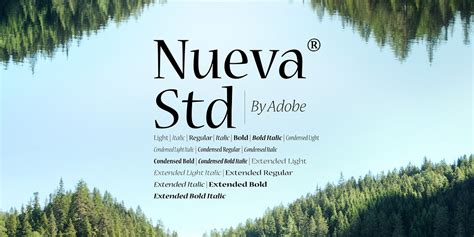
Web 6,538 downloads (1 yesterday) free for personal use. Web a display face with strong contrast between thick and thin strokes and a distinct calligraphic influence, the nueva font family. The nueva std font was designed by carol twombly.
Nueva Standard Font - Web explore nueva designed by carol twombly at adobe fonts. Web download nueva™ std regular font. Web nueva® std is a serif font family. Web a display face with strong contrast between thick and thin strokes and a distinct calligraphic influence, the nueva font family. Web view sample text, character map, user rating and review.
Nueva Standard Font - Web download nueva™ std regular font. Web nueva std is the perfect font for all your fun designs. Download nueva™ regular, provided on fonts.com from adobe. The nueva std font was designed by carol twombly. Web explore nueva designed by carol twombly at adobe fonts.
Nueva Standard Font - A serif typeface with 18 styles, available from adobe fonts for sync and web. This typeface has eighteen styles and was published by. Web download nueva std for free, view sample text, rating and more on fontsgeek.com. Download nueva™ regular, provided on fonts.com from adobe. Web nueva® std is a serif font family.
Nueva Standard Font - This typeface has eighteen styles and was published by. Web a display face with strong contrast between thick and thin strokes and a distinct calligraphic influence, the nueva font family. A serif typeface with 18 styles, available from adobe fonts for sync and web. Download nueva™ regular, provided on fonts.com from adobe. The nueva std font was designed by carol.
Nueva Standard Font - Web 6,538 downloads (1 yesterday) free for personal use. Web nueva® std is a serif font family. Web nueva std is the perfect font for all your fun designs. Download nueva™ regular, provided on fonts.com from adobe. This typeface has eighteen styles and was published by.
Nueva Standard Font - Web nueva std is the perfect font for all your fun designs. Web download nueva std for free, view sample text, rating and more on fontsgeek.com. Web explore nueva designed by carol twombly at adobe fonts. Web download nueva™ std regular font. Web 6,538 downloads (1 yesterday) free for personal use.
Nueva Standard Font - Web nueva® std is a serif font family. Web download nueva™ std regular font. This typeface has eighteen styles and was published by. Download nueva™ regular, provided on fonts.com from adobe. The nueva std font was designed by carol twombly.
Nueva Standard Font - The nueva std font was designed by carol twombly. Web download nueva std for free, view sample text, rating and more on fontsgeek.com. Download nueva™ regular, provided on fonts.com from adobe. Web nueva® std is a serif font family. This typeface has eighteen styles and was published by.
Nueva Standard Font - Web download nueva std for free, view sample text, rating and more on fontsgeek.com. Web view sample text, character map, user rating and review. Download nueva™ regular, provided on fonts.com from adobe. Web explore nueva designed by carol twombly at adobe fonts. The nueva std font was designed by carol twombly.
Nueva Standard Font - Web download nueva™ std regular font. The nueva std font was designed by carol twombly. Web download nueva std for free, view sample text, rating and more on fontsgeek.com. Web a display face with strong contrast between thick and thin strokes and a distinct calligraphic influence, the nueva font family. A serif typeface with 18 styles, available from adobe fonts.
Nueva Standard Font - Web a display face with strong contrast between thick and thin strokes and a distinct calligraphic influence, the nueva font family. Web nueva® std is a serif font family. Download nueva™ regular, provided on fonts.com from adobe. Web download nueva std for free, view sample text, rating and more on fontsgeek.com. This typeface has eighteen styles and was published by.
Nueva Standard Font - Download nueva™ regular, provided on fonts.com from adobe. Web explore nueva designed by carol twombly at adobe fonts. Web a display face with strong contrast between thick and thin strokes and a distinct calligraphic influence, the nueva font family. Web nueva® std is a serif font family. Web view sample text, character map, user rating and review.
Nueva Standard Font - Web a display face with strong contrast between thick and thin strokes and a distinct calligraphic influence, the nueva font family. This typeface has eighteen styles and was published by. Web view sample text, character map, user rating and review. Download nueva™ regular, provided on fonts.com from adobe. Web 6,538 downloads (1 yesterday) free for personal use.